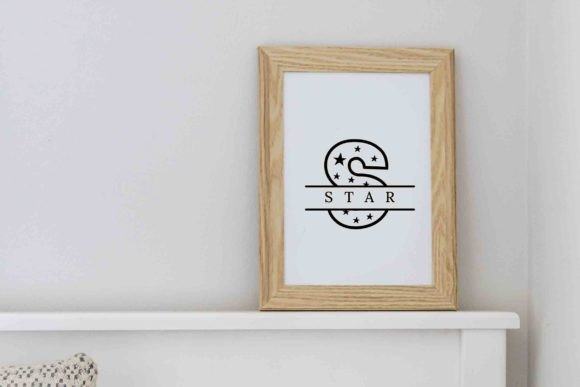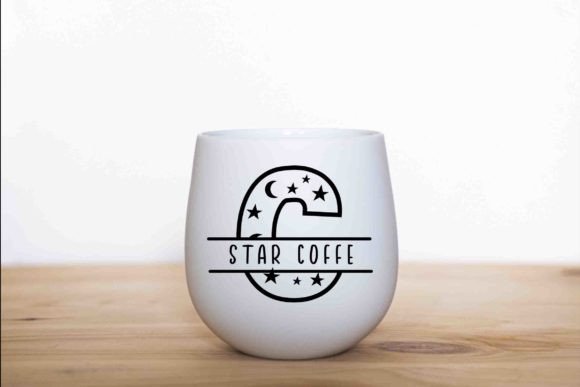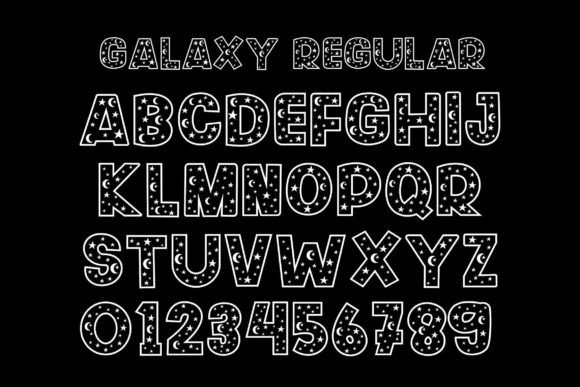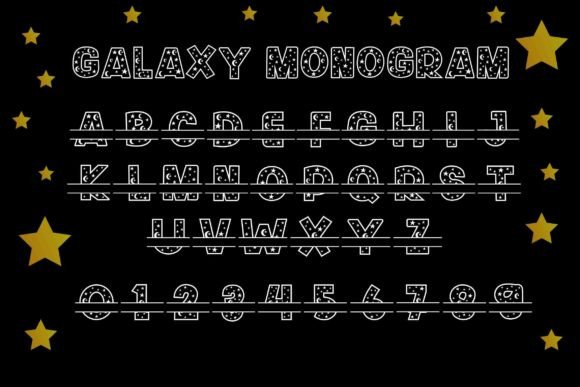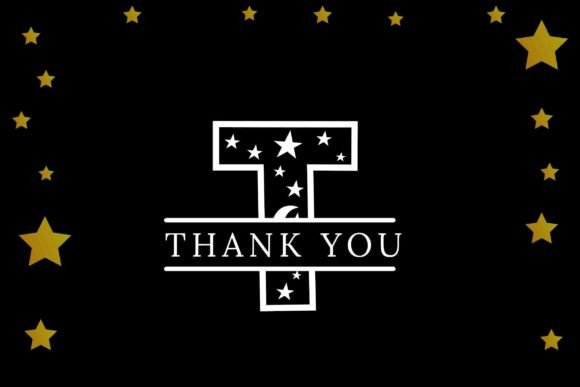
Introduction to Galaxy Monogram Font
Have you ever found yourself lying in bed, gazing up at the starry night sky, feeling inspired by the endless possibilities that lie beyond our world? This is exactly where the magic of creative projects begins – in the moments of quiet contemplation, when our minds start to wander and our imagination takes flight.
For designers, finding the right design resource can be a game-changer. A high-quality font like the Galaxy Monogram Font can elevate even the simplest of designs into something truly special. With its elegant and simple aesthetic, this font is perfect for creating pretty invitations, stationery art, and social media posts that exude a cool and sophisticated vibe.
Key Features of Galaxy Monogram Font
- Unique and Creative Design: Galaxy Monogram Font is a high-quality, custom-designed monogram font perfect for creative projects that require a touch of elegance and sophistication.
- Large Character Set: Galaxy Monogram Font includes a large character set, including uppercase and lowercase letters, numbers, and punctuation marks, making it a versatile font for a wide range of applications.
Honest Review: Galaxy Monogram Font
I recently had the chance to work with the Galaxy Monogram Font, and I must say it’s been a game-changer for my creative projects. This font is a high-quality design resource that’s perfect for anyone looking to add a touch of elegance and sophistication to their work.
- ✨ The font’s unique monogram design makes it perfect for creating custom logos, invitations, and other graphics.
However, I do have a few minor quibbles with the font. For one, it’s not available in as many styles as I would like (⚠️). Additionally, the font can be a bit tricky to use with certain text editors (⚠️).
Overall, I’m really impressed with the Galaxy Monogram Font. It’s a great design resource that’s perfect for anyone looking to add a touch of sophistication to their work. I would definitely recommend it to fellow designers.
Tips for Getting the Most Out of Galaxy Monogram Font
The Galaxy Monogram Font is perfect for creating high-quality designs for weddings, baby showers, and other special events. It’s also great for designing business cards, logos, and other branding materials. With its unique and creative design, the Galaxy Monogram Font is a valuable design resource for any project.